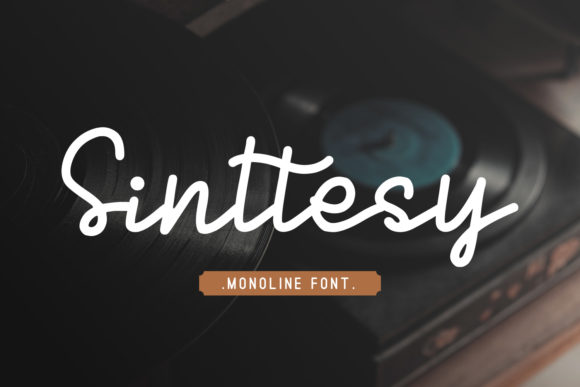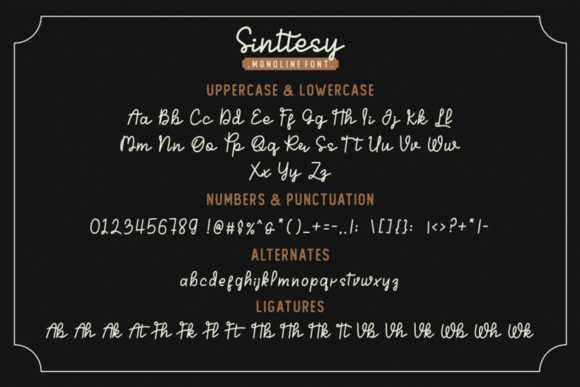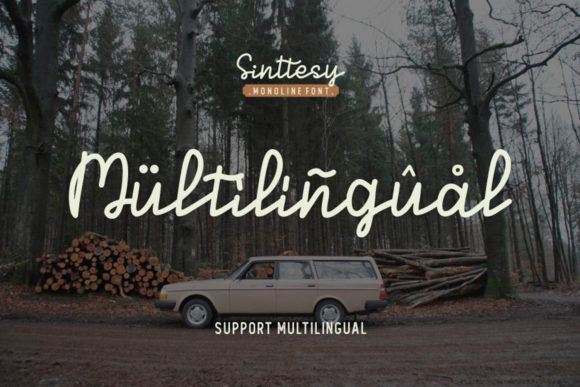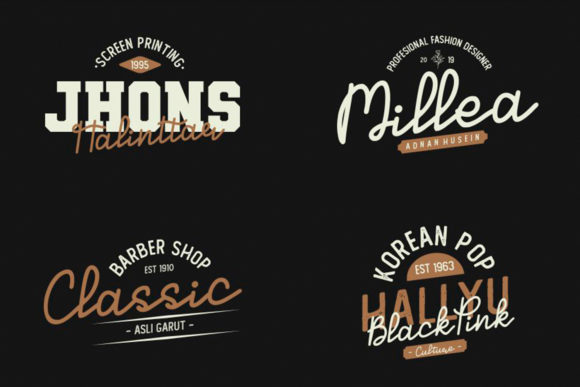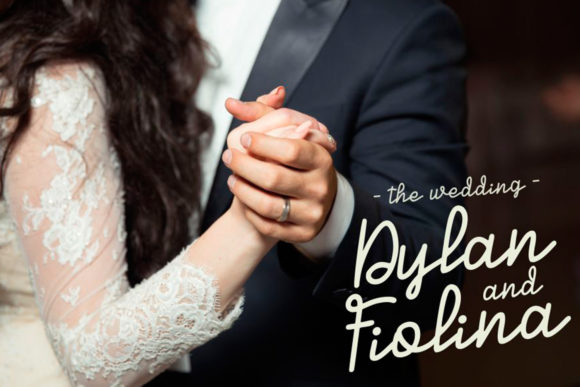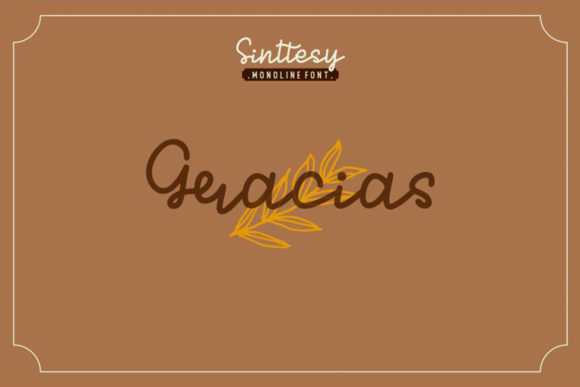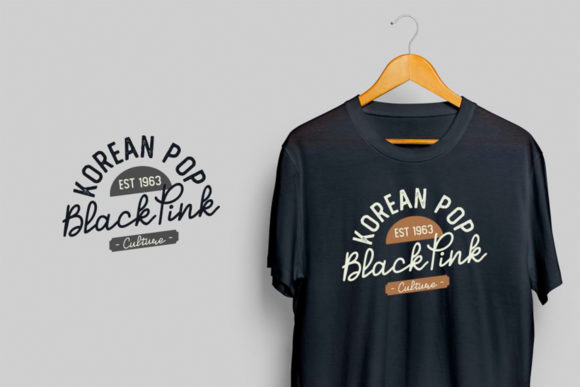
Sinttesy Font
About Sinttesy Font
Sinttesy is a cute and casual handwritten font created with a touch of elegance. It will elevate a wide range of design projects to the highest level, be it branding, headings, wedding designs, invitations, signatures, logos, labels, and much more!